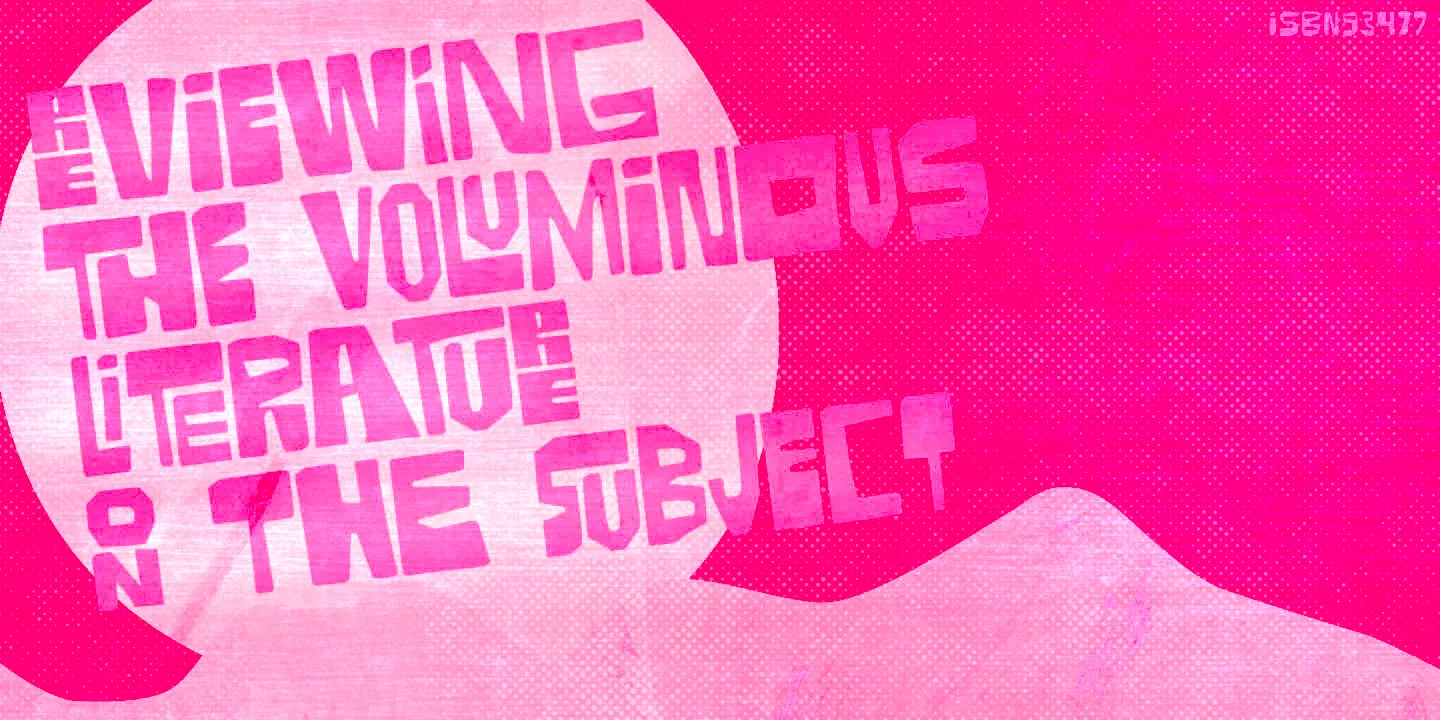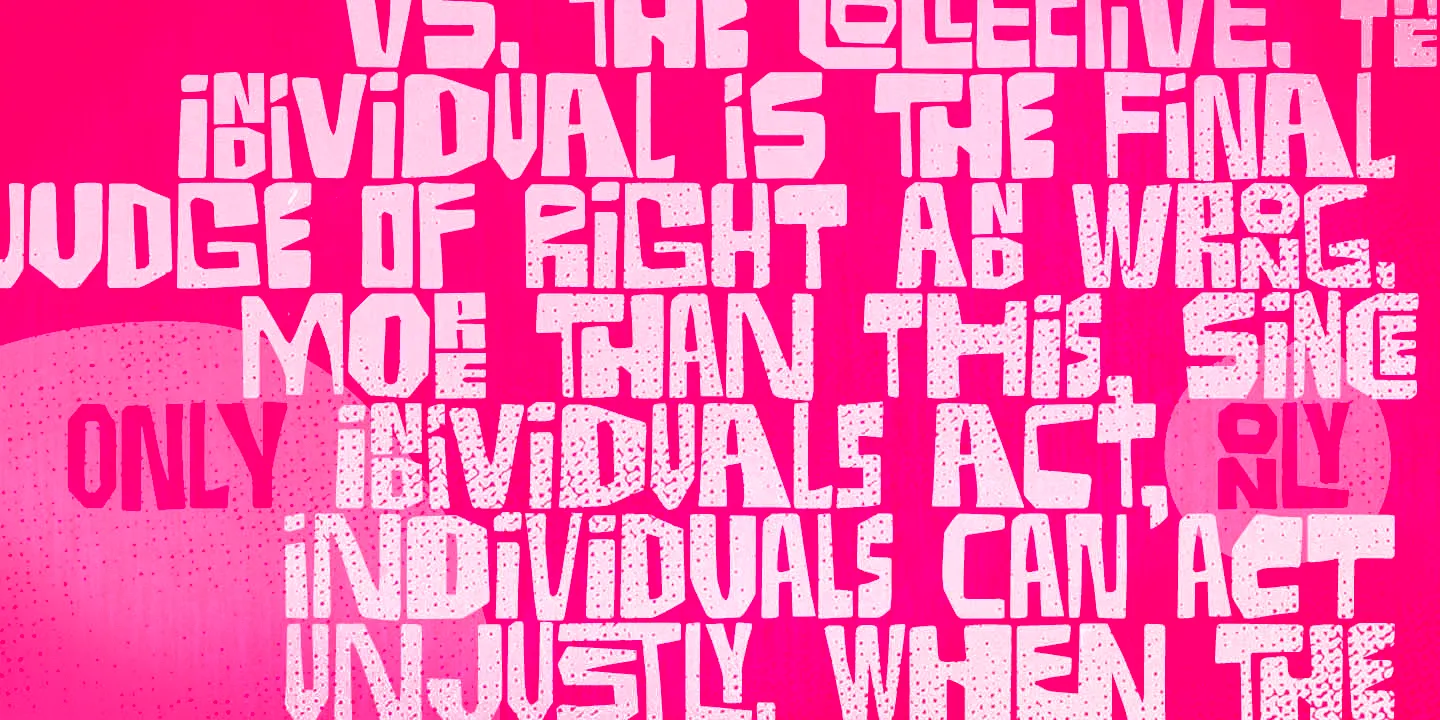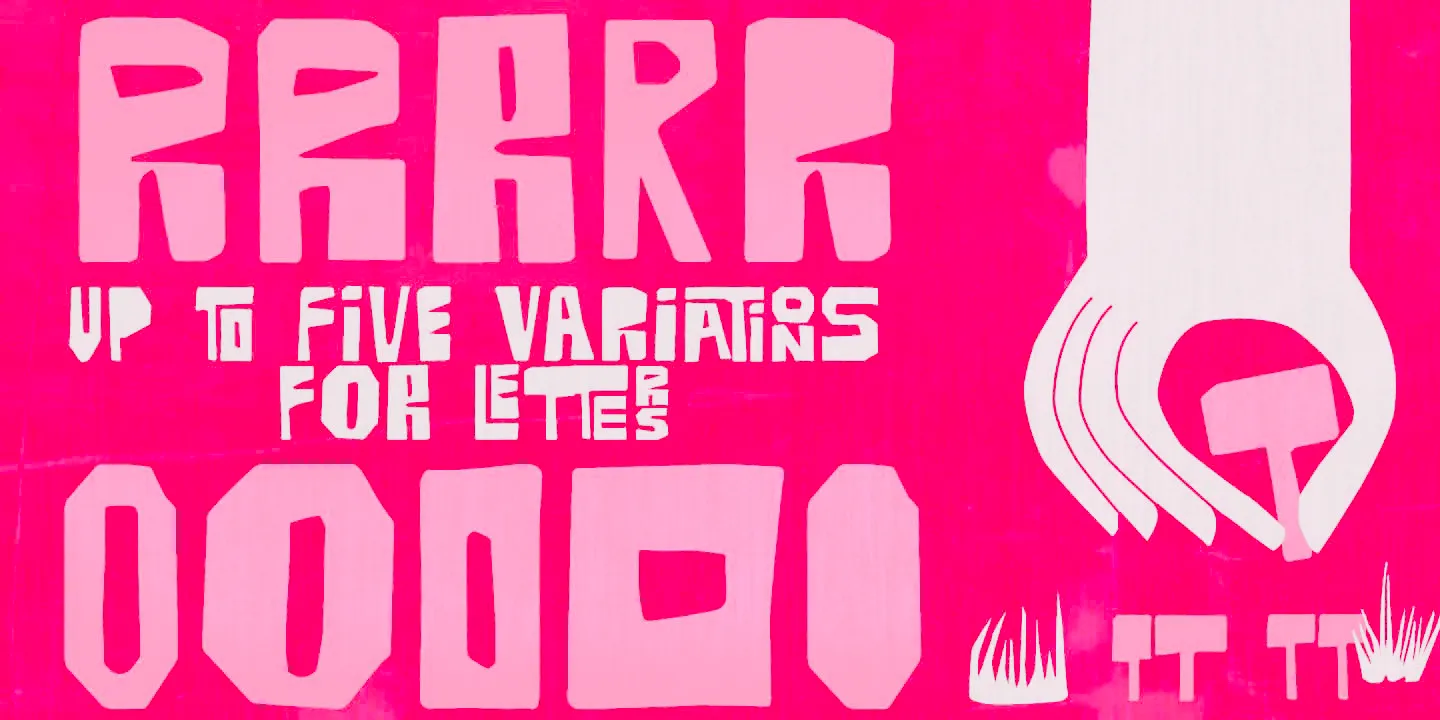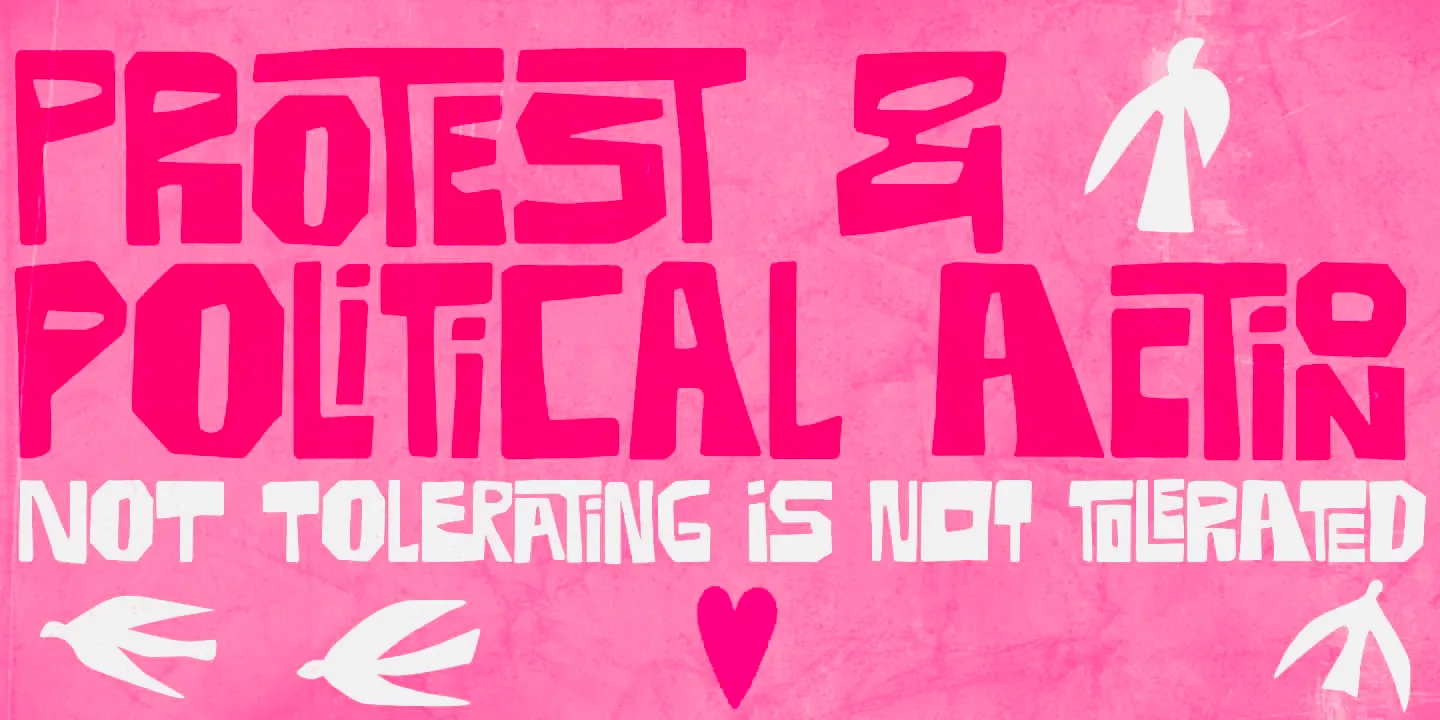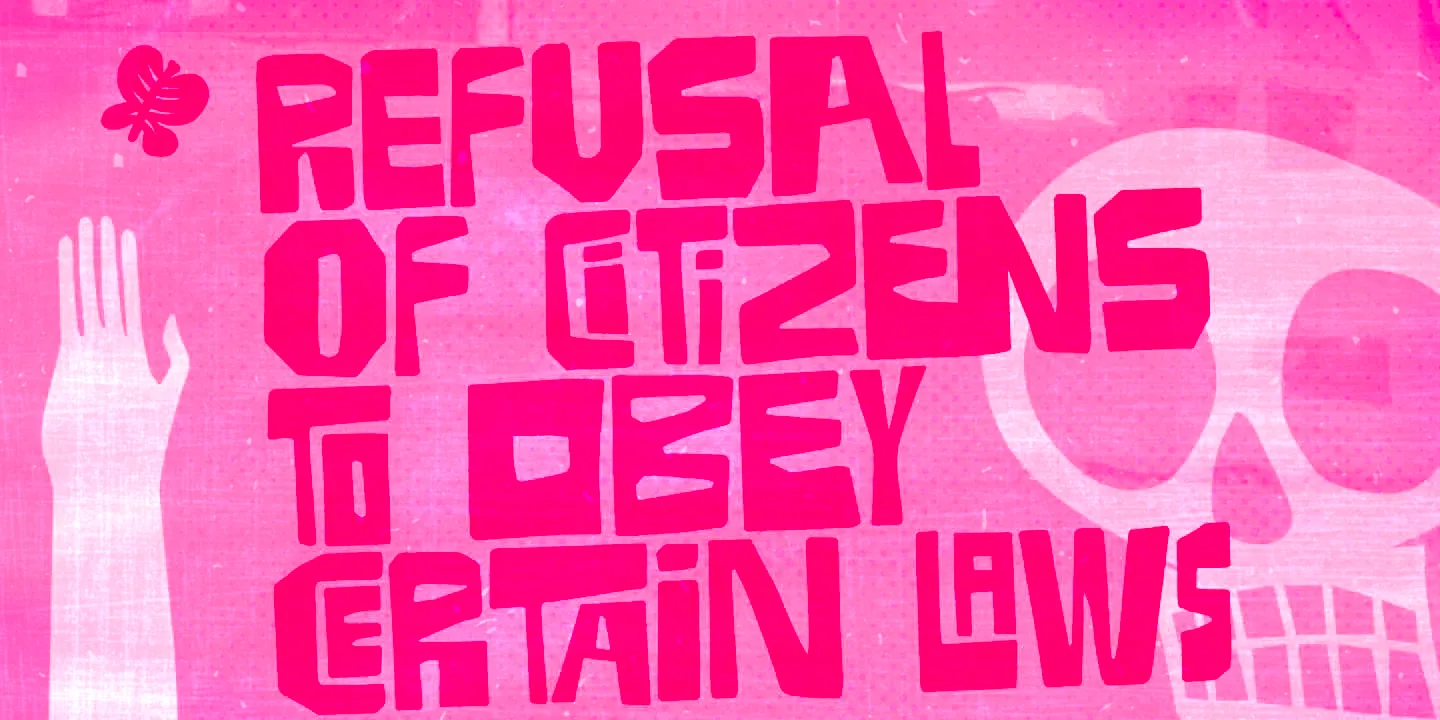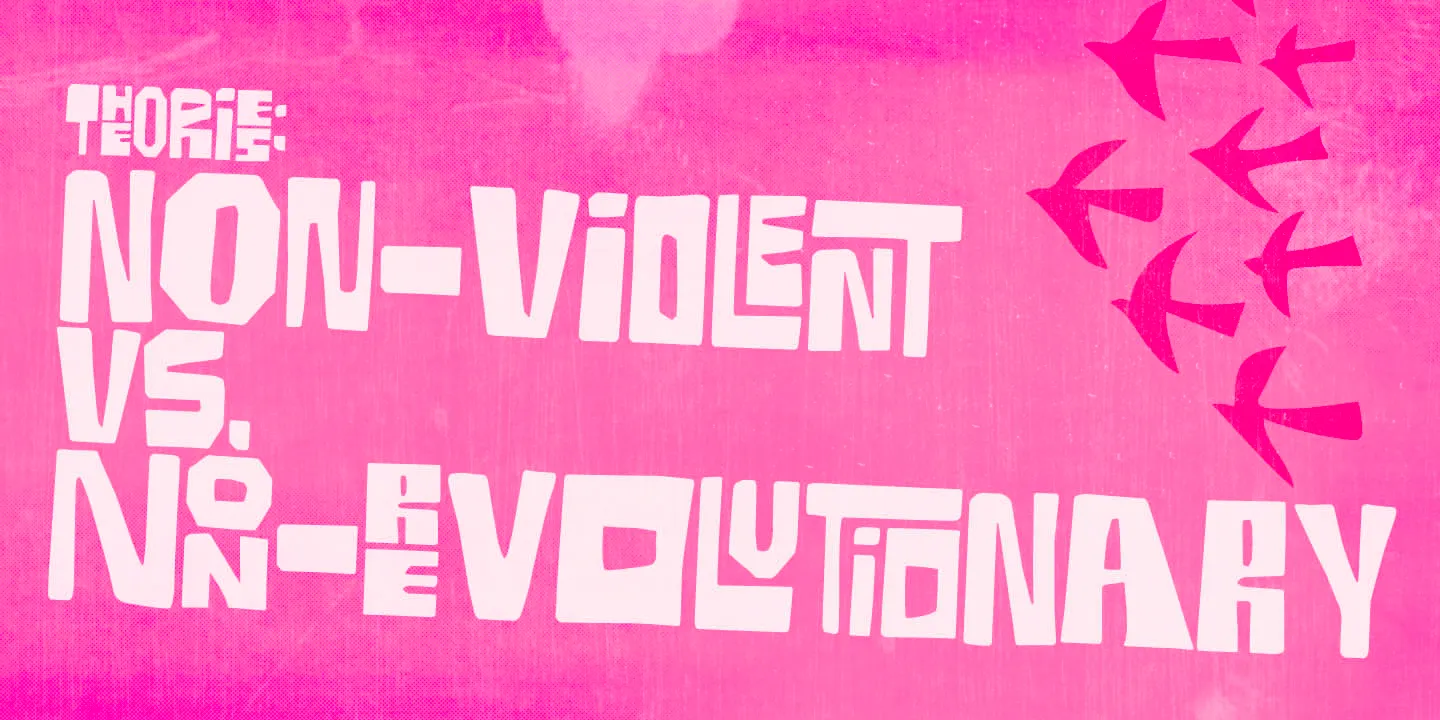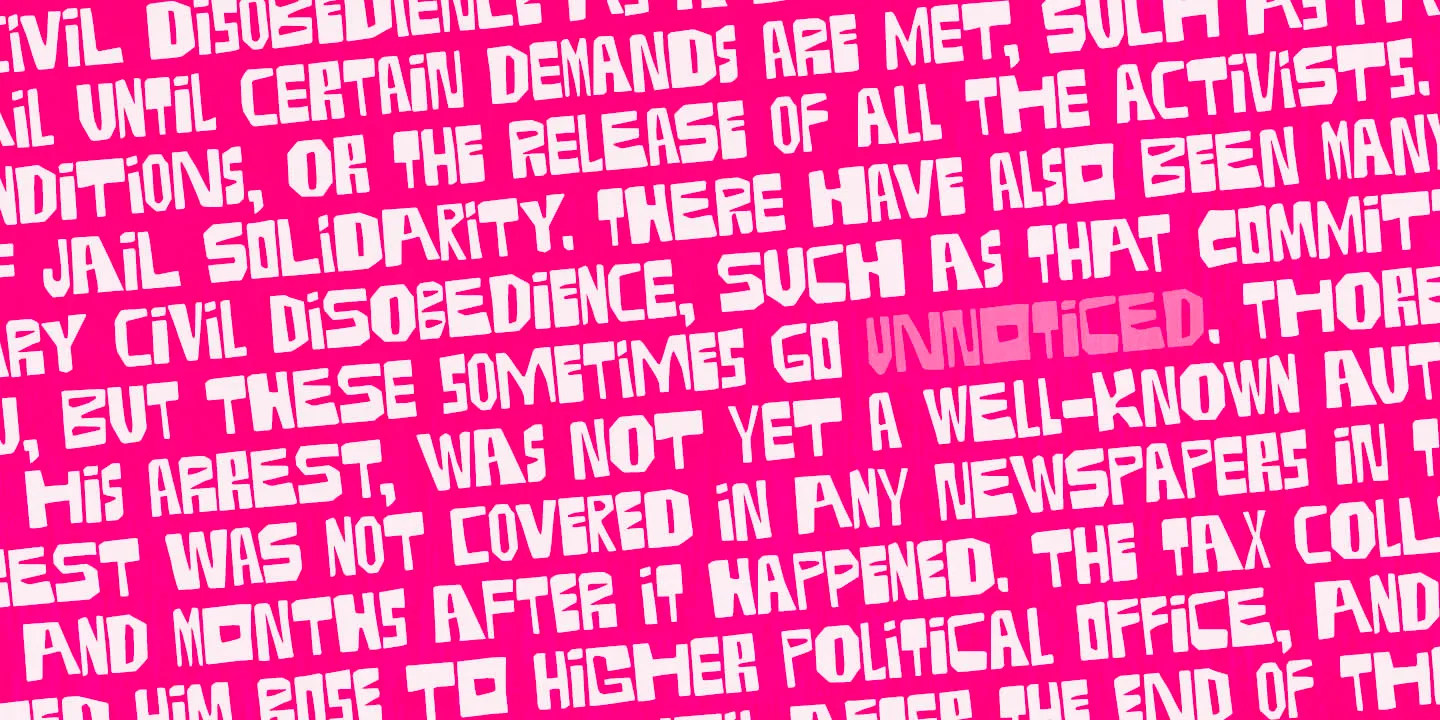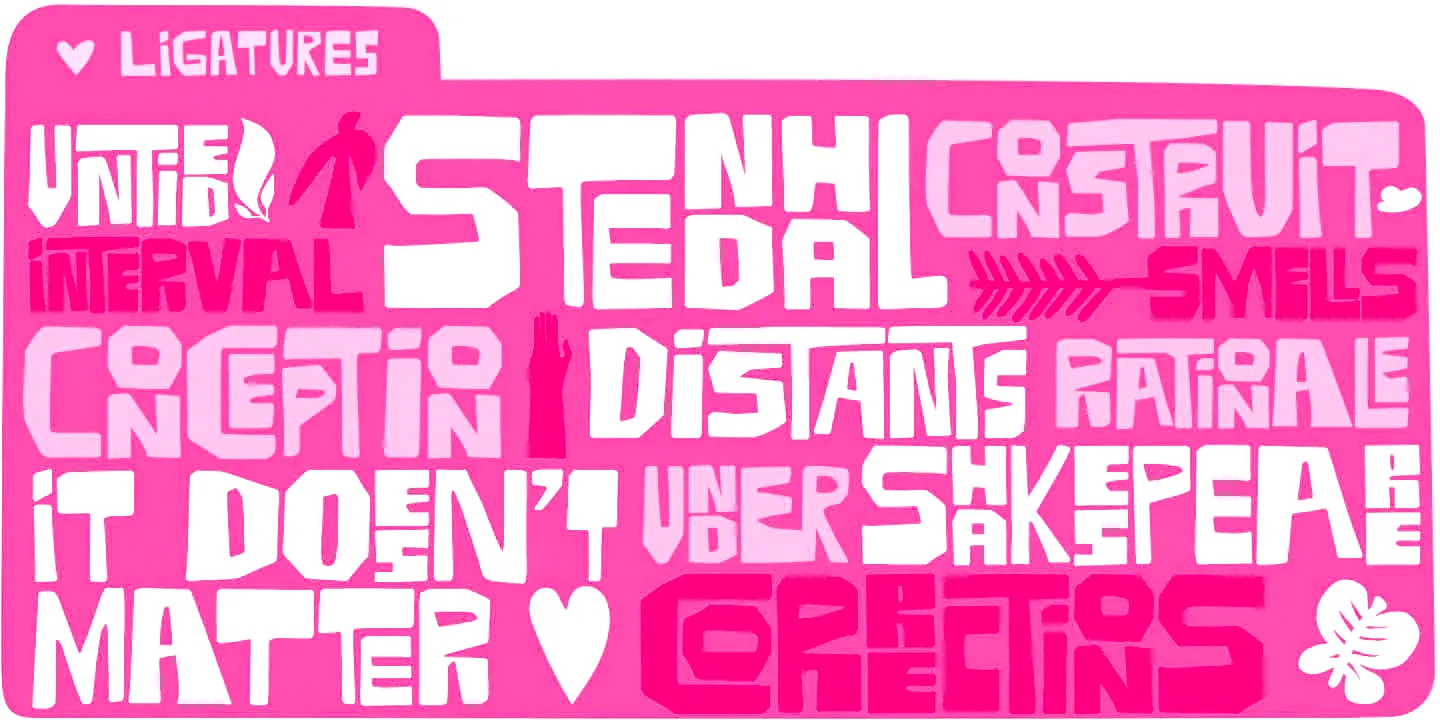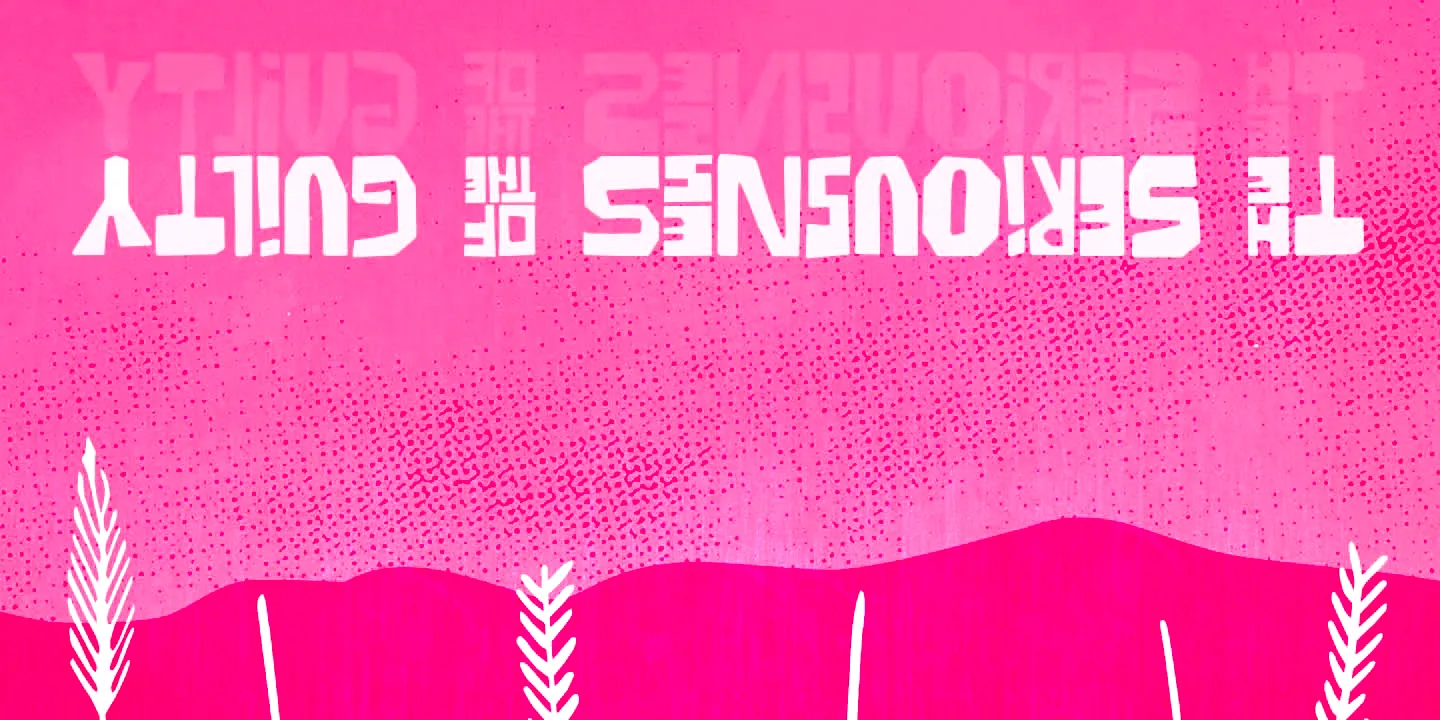
Pieches
Pieches is a linocut-looking all-caps font inspired by the powerful political and social posters designed by artist and printer Paul Peter Piech. Questioned about his endless focus on work, he once said, “I don’t want to sit around and be silent.” With the bonus of interlock letterforms, designers can create countless expressive possibilities. This is a loud-speaking font for those who don’t want to be silent. Ideal for adding a gritty, handcrafted energy to posters, zines, and album covers.
• Discretionary Ligatures
• Titling Capitals